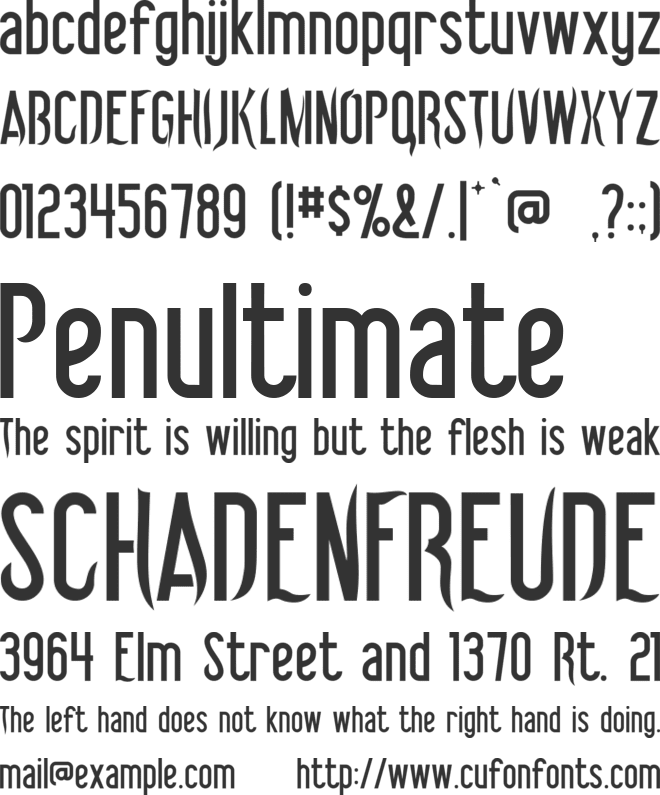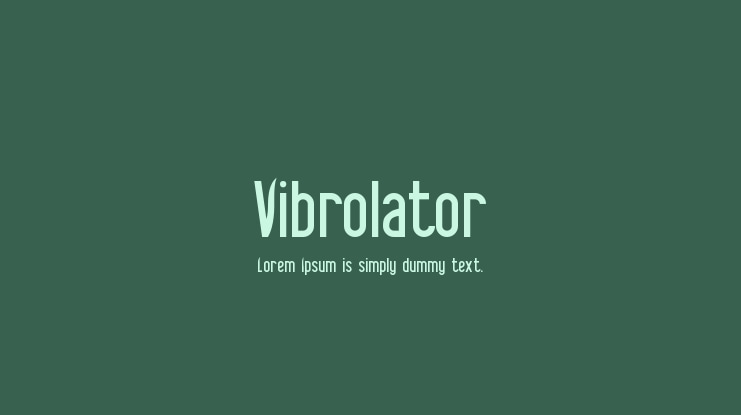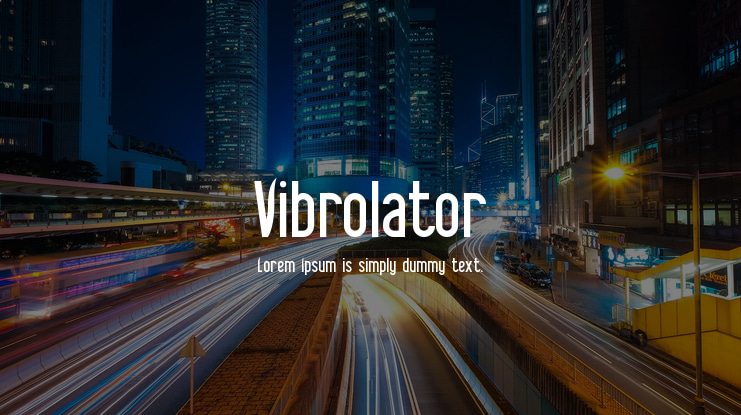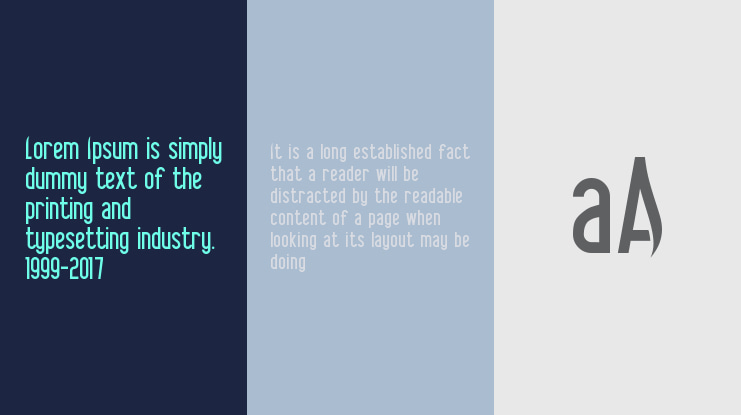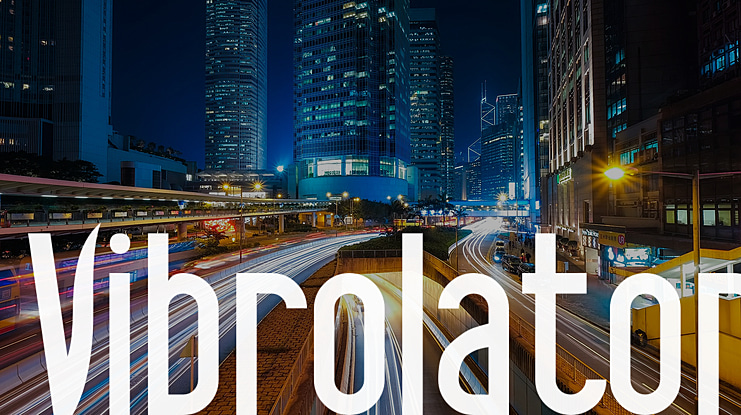
Vibrolator Font
This font reminds me of my favourite Depeche Mode album for some reason... Maybe it's the strong voice and unique basslines. All of the uppercase letters are a bit swirly and the lowercase ones are normal.